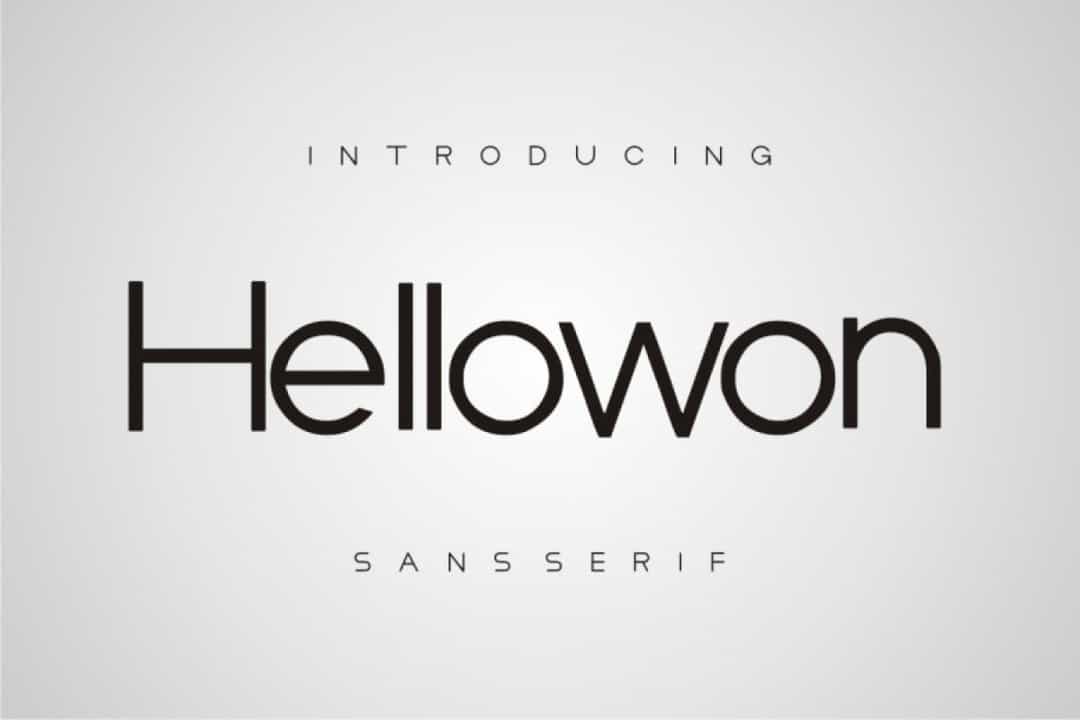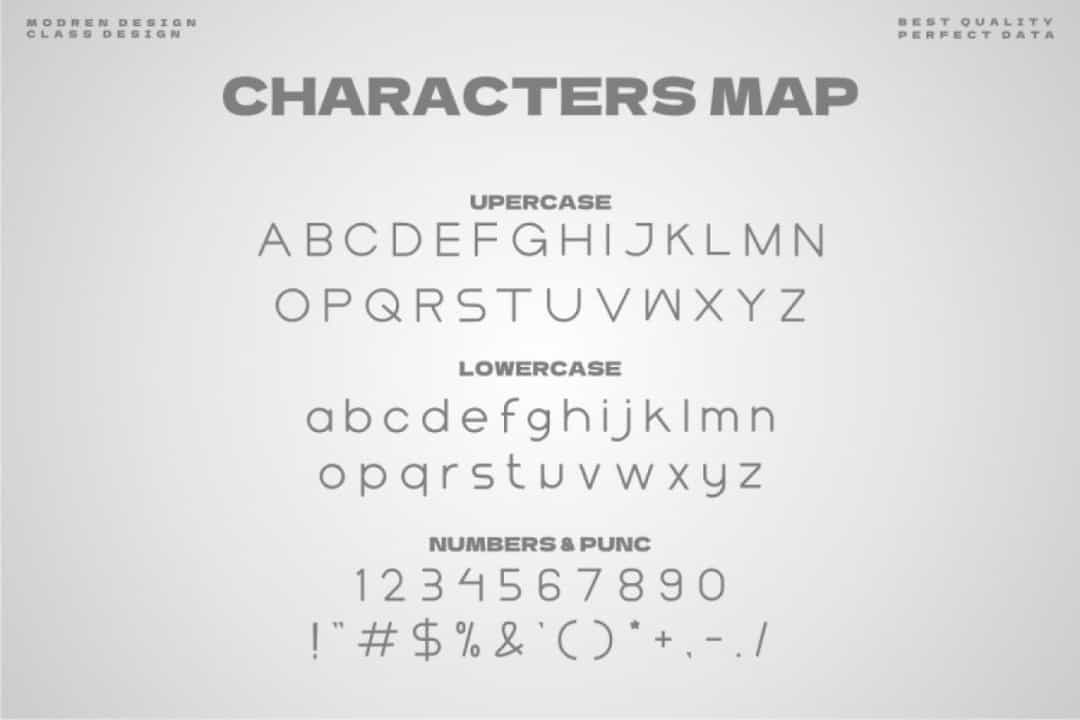
Hellowon is an elegant yet simplistic sans serif typeface, featuring both uppercase and lowercase characters along with numeric symbols for use in projects of all kinds. Add Hellowon into your creative ideas for making them shine out!